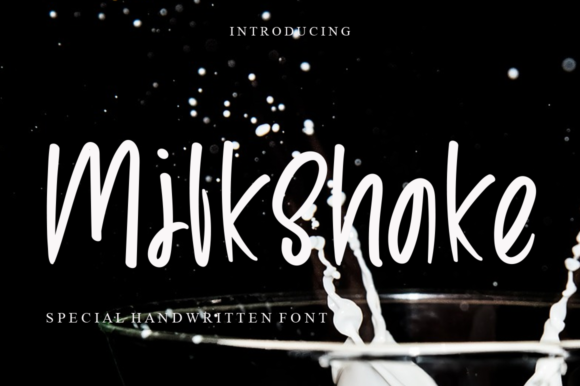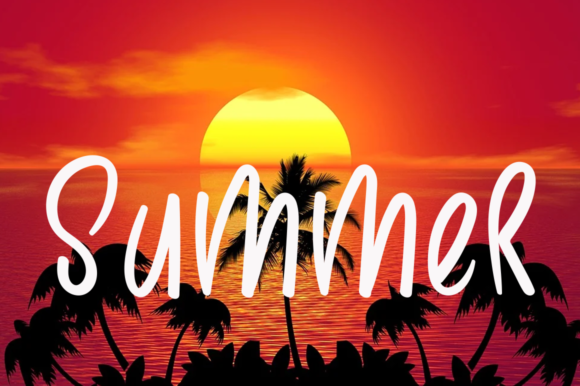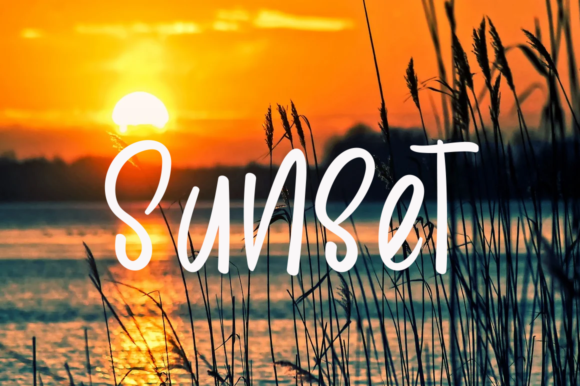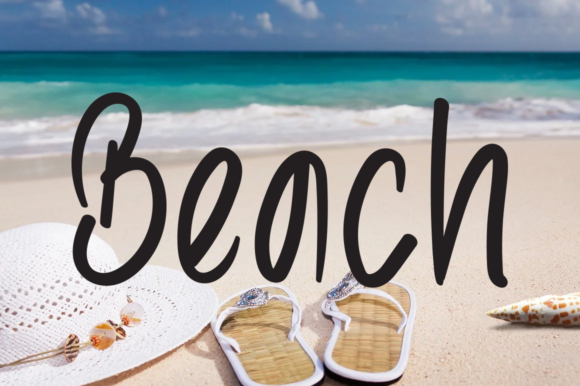
Milkshake Font
About Milkshake Font
Milkshake is a friendly and relaxed handwritten font. Beautifully clear and cursive, this font is here to make your creations seem out of this world! Fall in love with this font and use it in your most creative projects!